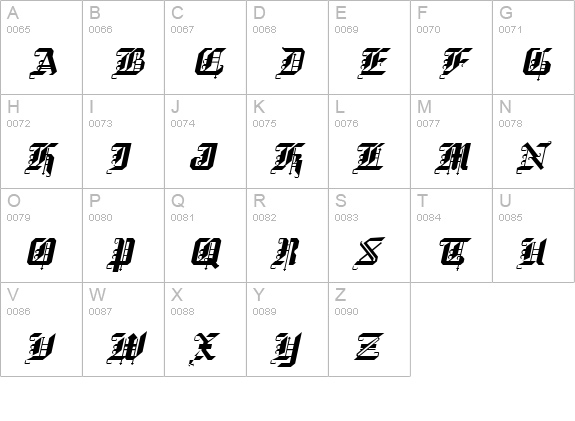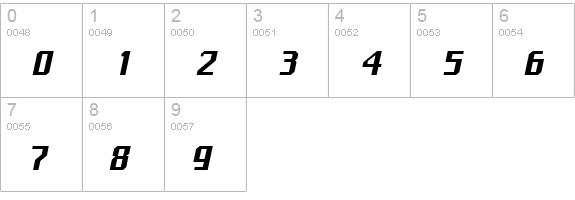
Gothic Italic is a distinctive, italic variant in the Gothic typeface family \xE2\x80\x94 well suited to design and typography projects.
Introducing the captivating and mysterious Gothic Italic font - a stunning typeface that exudes elegance and sophistication. With its unique blend of Gothic design elements and italicized styling, this font is perfect for adding a touch of drama to your projects. The Gothic Italic font is versatile enough to be used in a variety of design applications, from branding to editorial design. The best part? This exquisite font is absolutely free to download at FontsMarket.com. Simply visit the website to get your hands on this stunning typeface and elevate your design projects to new heights. Don't miss out on the opportunity to enhance your creations with the Gothic Italic font - download it today and let your creativity soar!